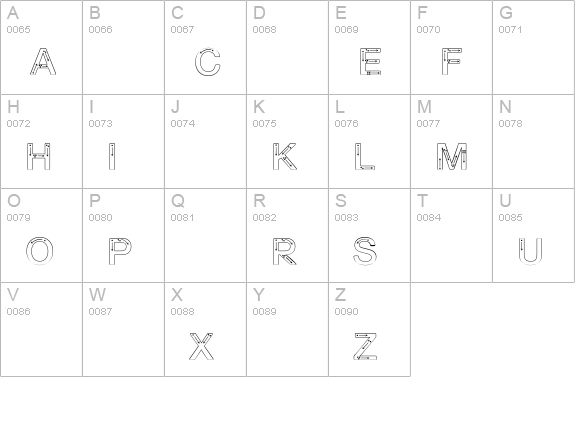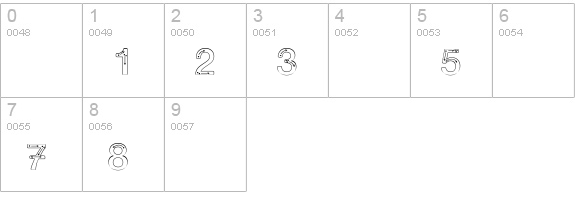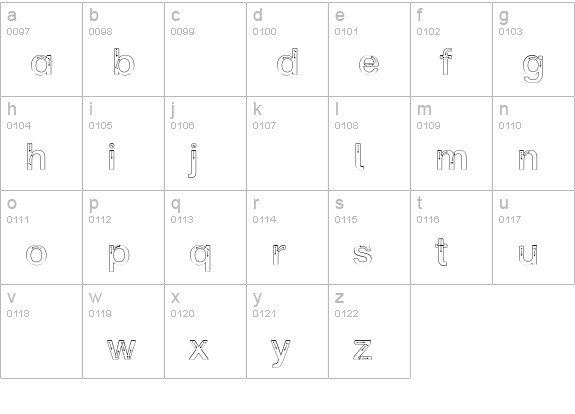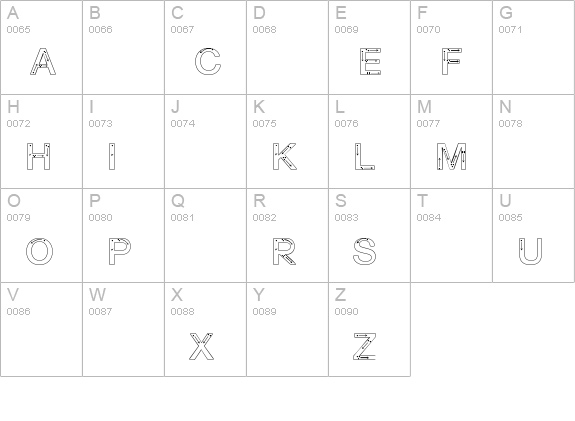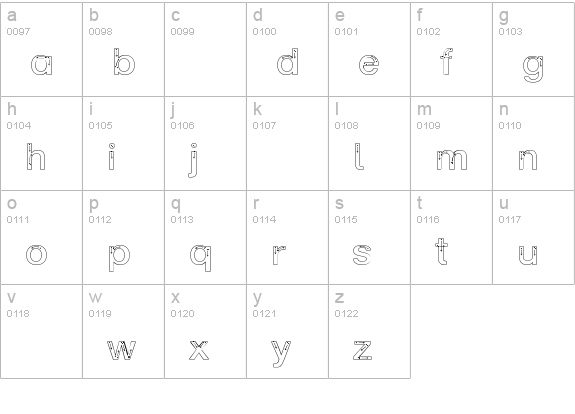
Nordspur Font Details
Nordspur font is a striking and modern typeface that exudes elegance and sophistication. Its sleek lines and versatile design make it perfect for a wide range of projects, from branding to editorial design. With its clean and minimalist aesthetic, Nordspur font adds a touch of refinement to any text or headline. The best part? Nordspur font is completely free to download at FontsMarket.com. This means you can easily access this high-quality font without breaking the bank. Whether you're a designer looking for a new addition to your font library or a business owner in need of a fresh look for your branding, Nordspur font is the perfect choice. Download it today and elevate your designs with this stunning typeface.